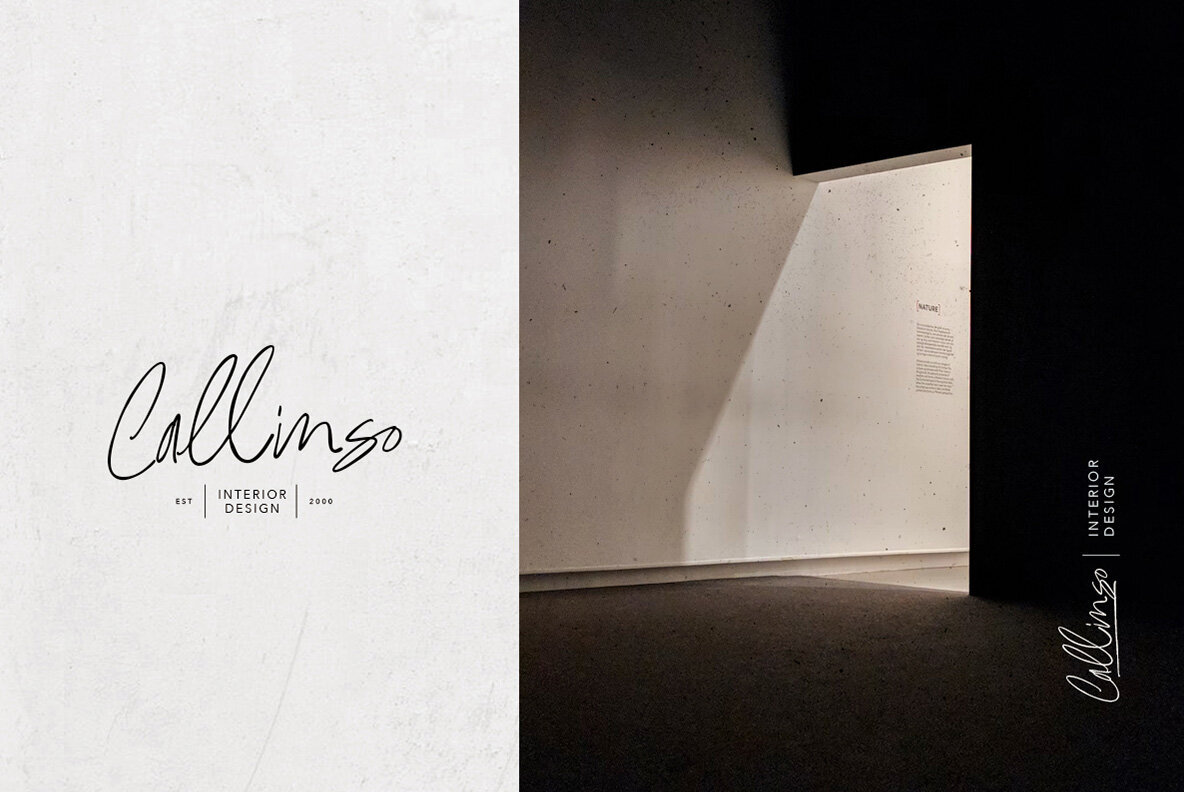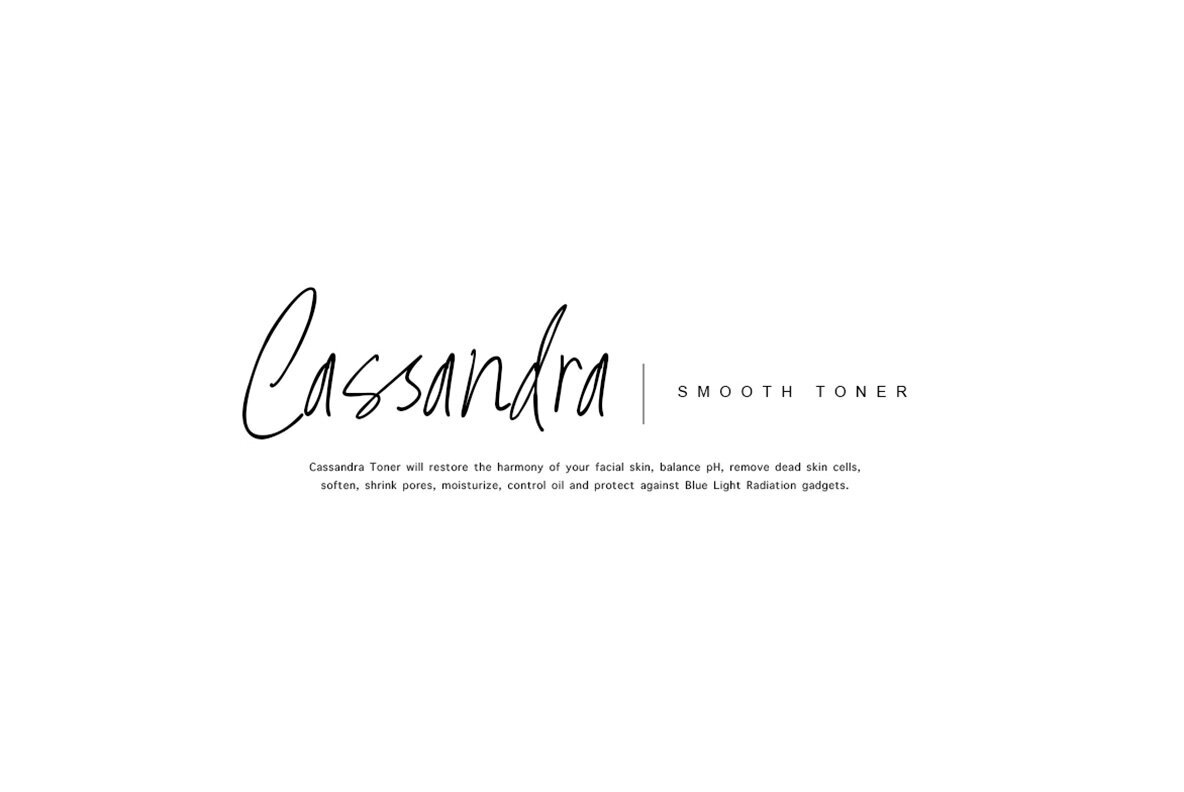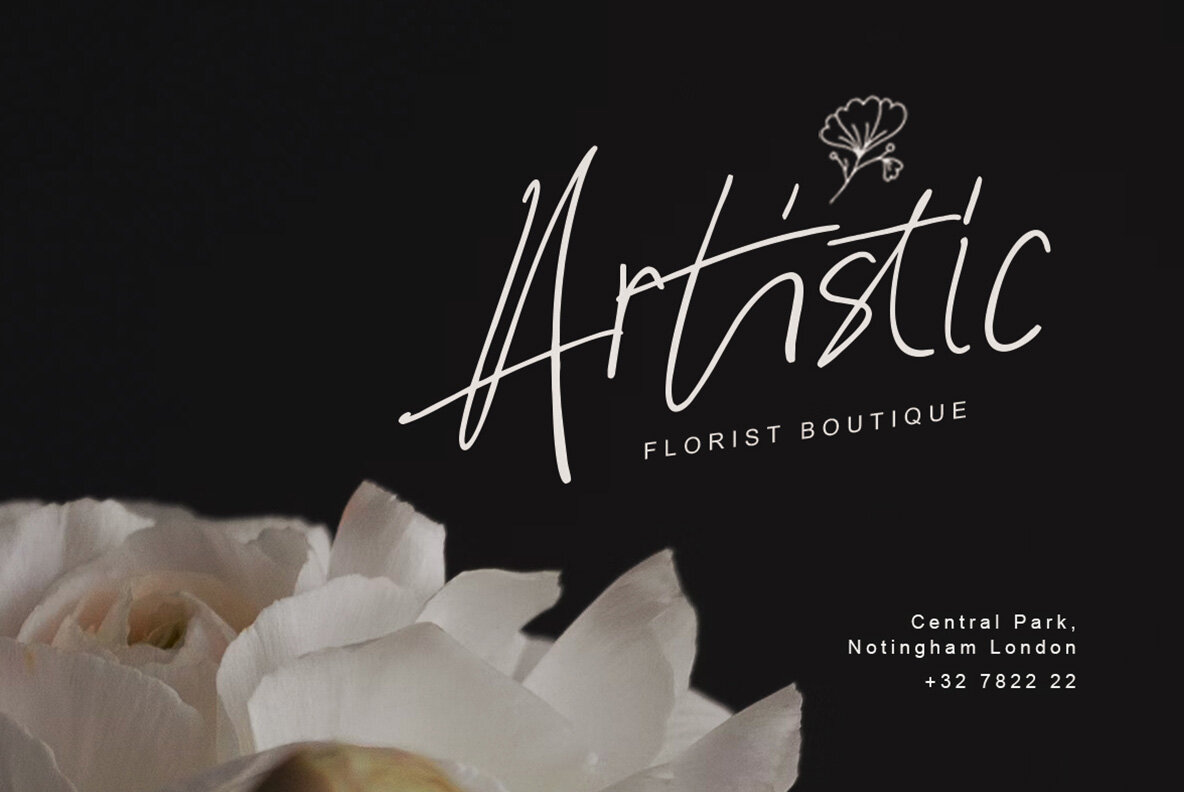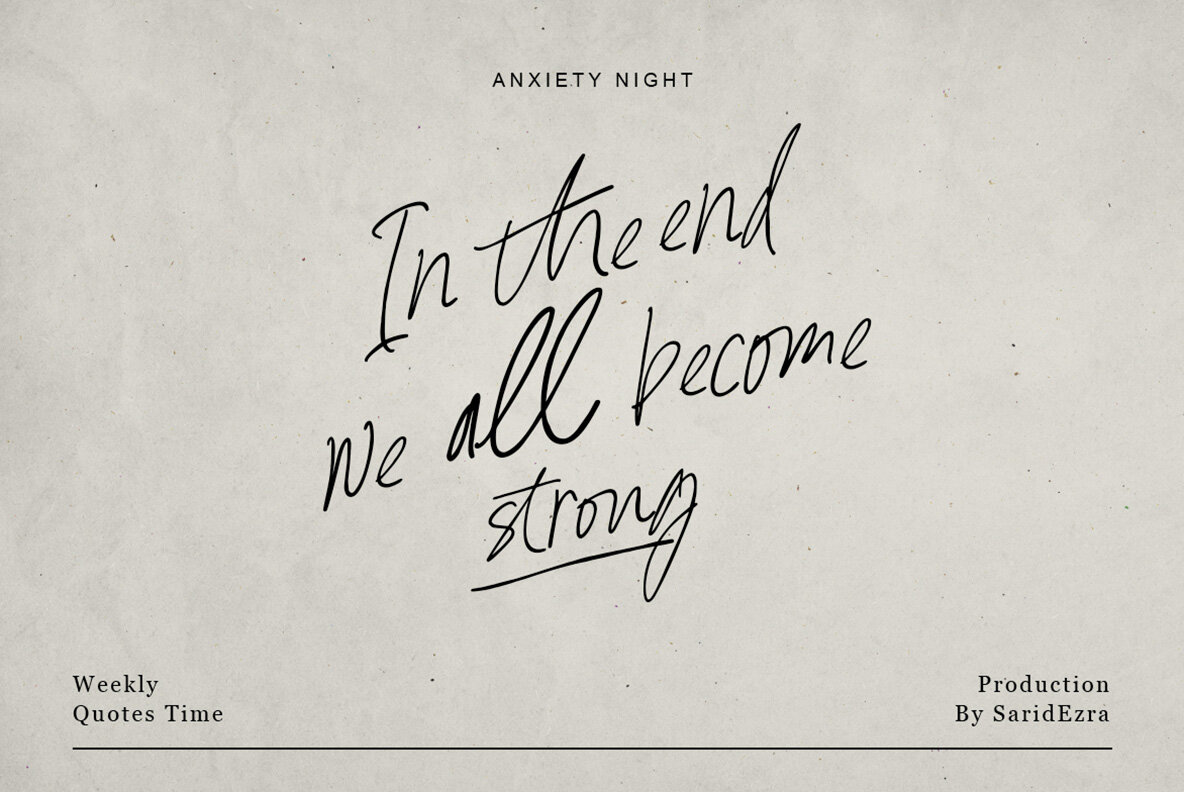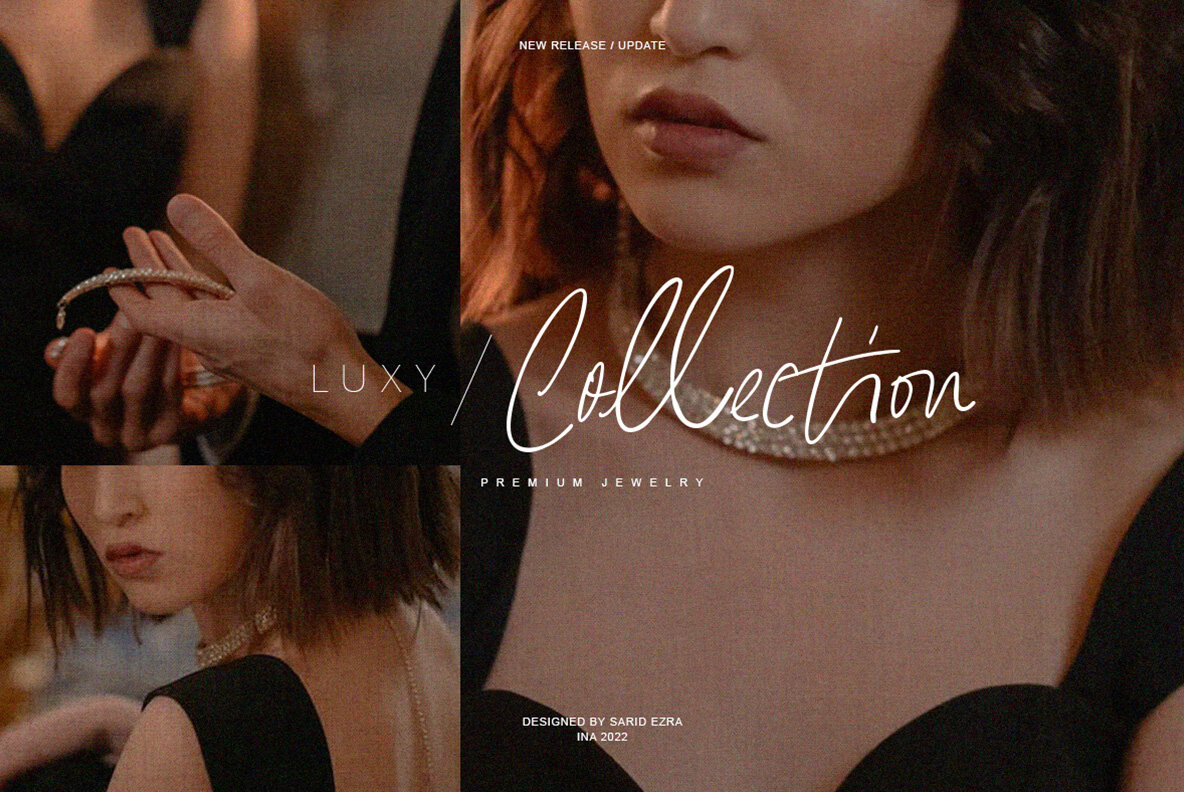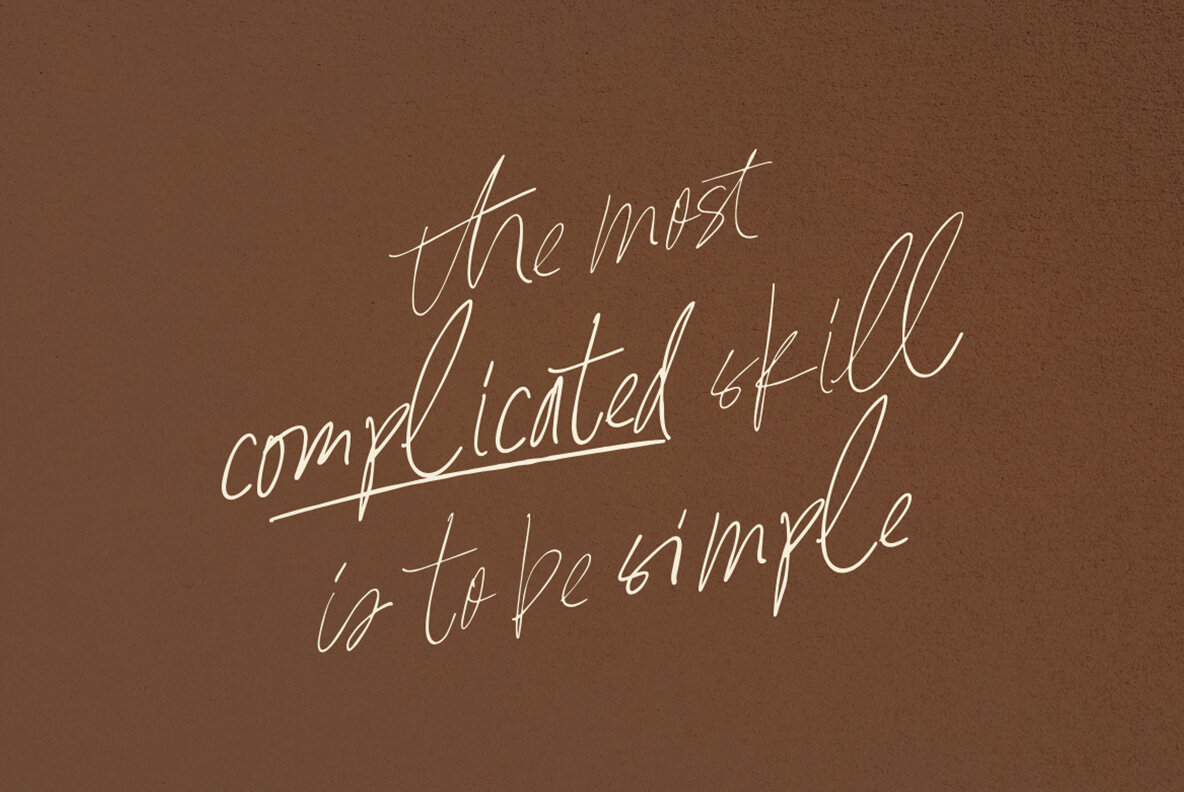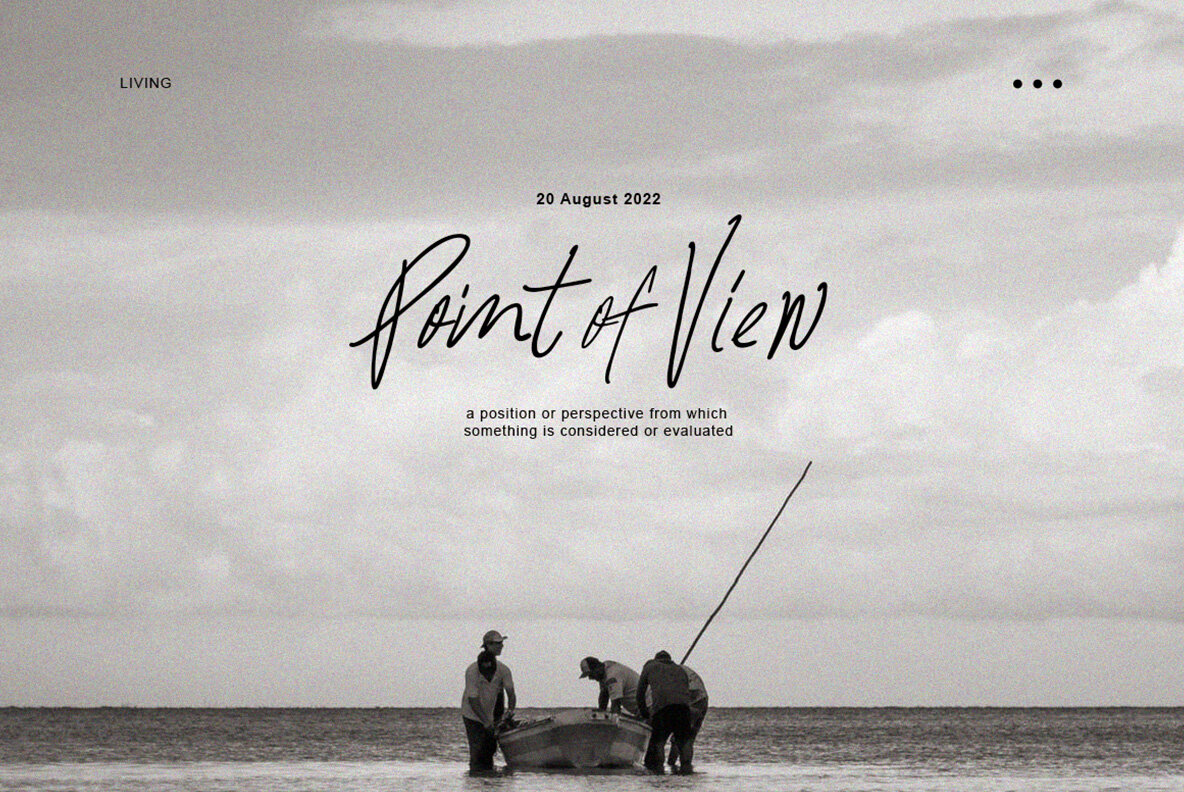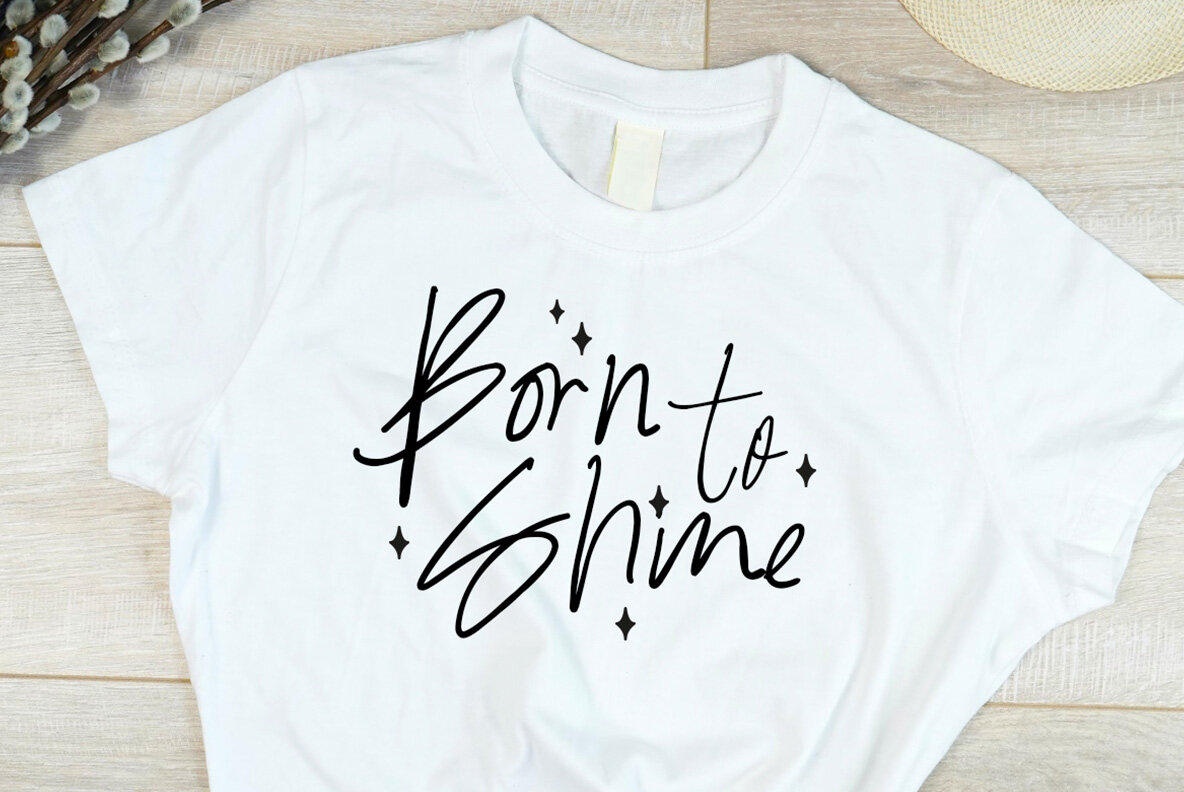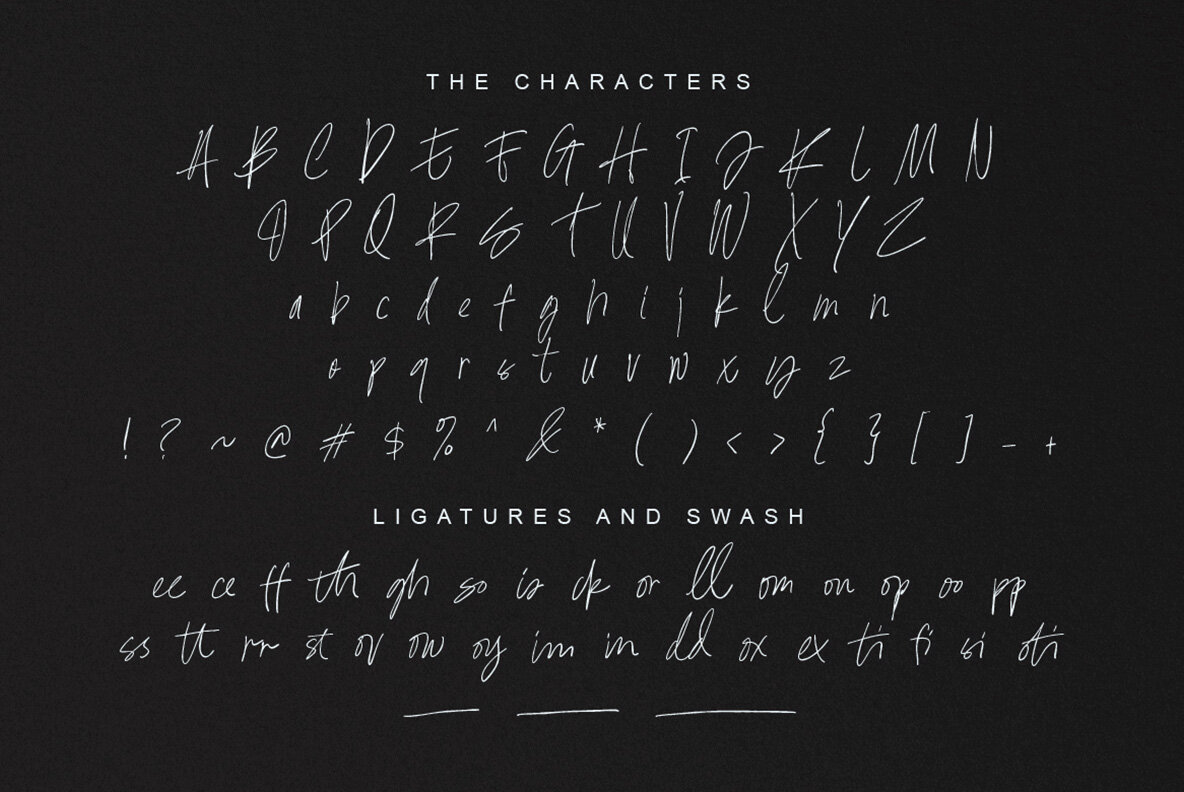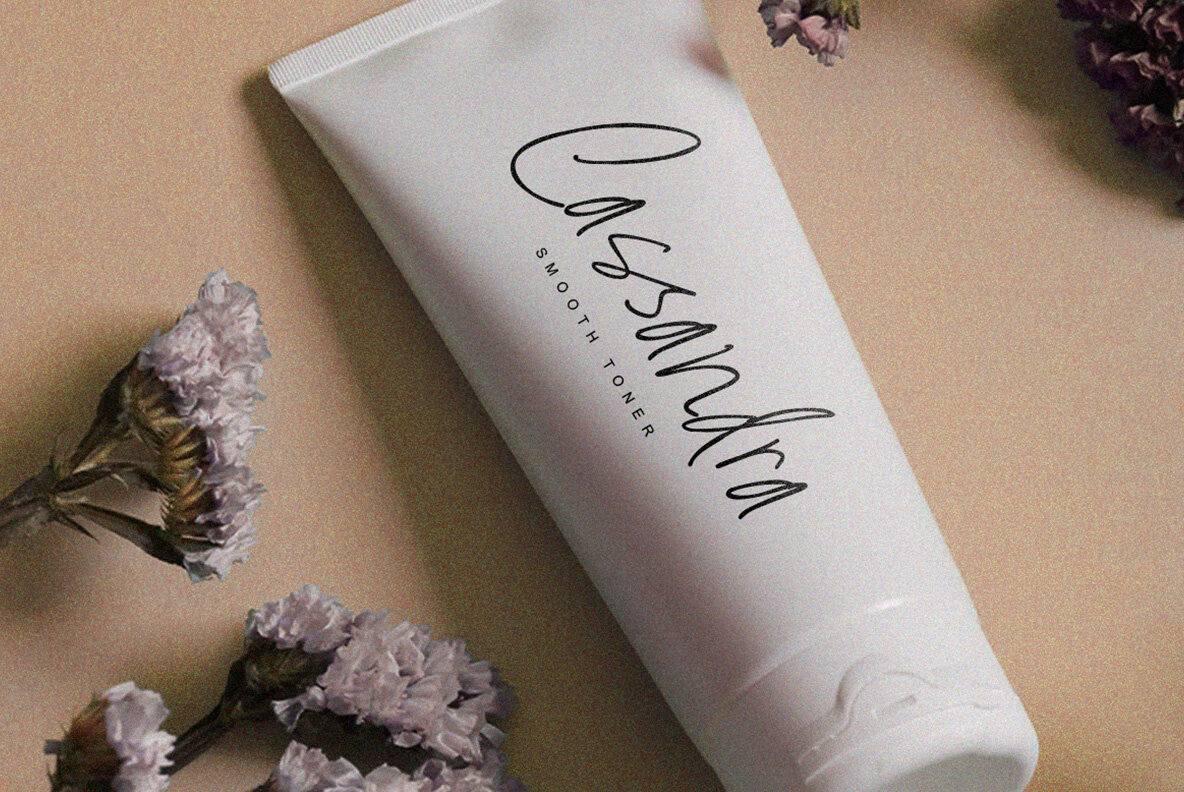
Right Potions Font
Embodying the grace of authentic penmanship, Right Potions is a handwritten script family encompassing three distinct weights, ranging from light to bold. Its stylish ligatures and underline feature add a natural handwritten flair, making it an excellent choice for logo creation, branding initiatives, magazine layouts, aesthetic social media posts, and capturing the charm of handwritten quotes. Additionally, Right Potions extends its support to an array of foreign languages, ensuring your designs reach a global audience with elegance and ease. Whether you're personalizing a brand or crafting an aesthetic statement, these fonts offer a sophisticated touch that is both practical and visually engaging.Right Potions: A Handwritten Script with Versatility